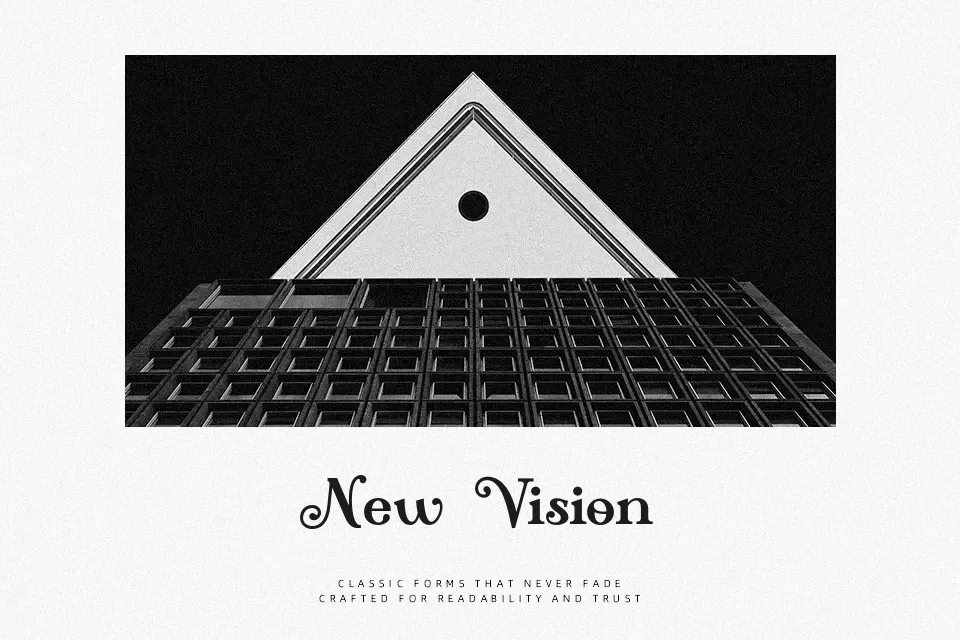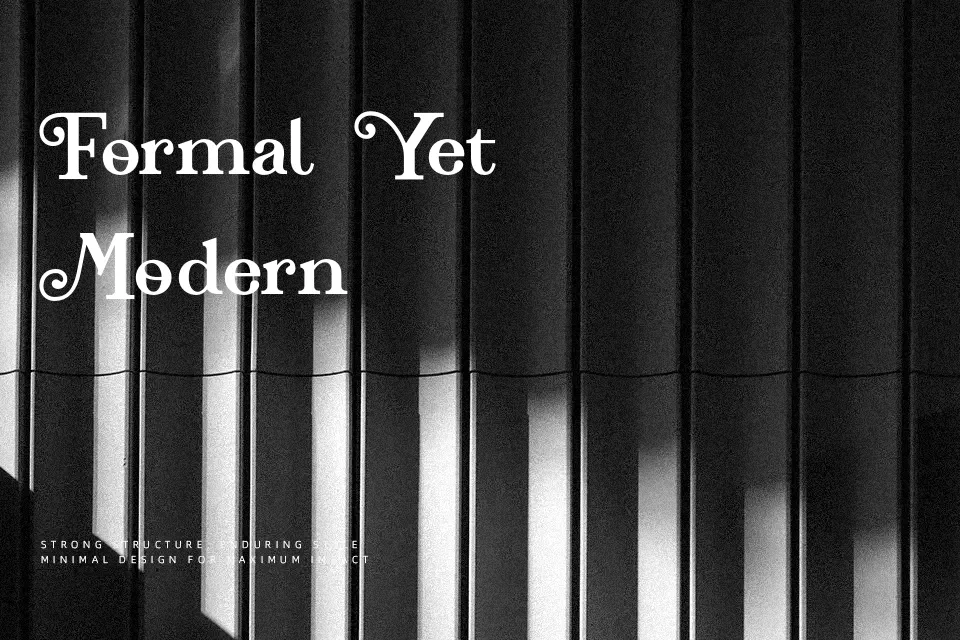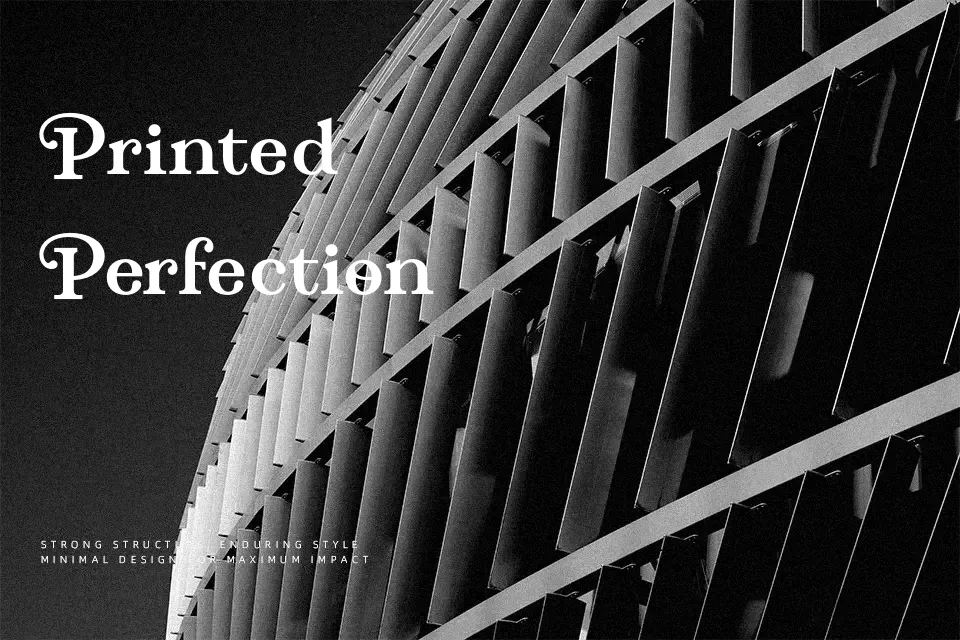
Teach Font
Teach Font delivers dramatic display typography shaped by sharp flared serifs, sweeping curved terminals, and prominent stroke contrast. Balanced spacing and elevated capitals ensure that headlines hold visual weight across poster billing blocks and entertainment branding. However, intricate terminal flourishes and delicate hairline transitions quickly deteriorate in dense editorial layouts. The letterforms perform best at generous display scales where their ornate silhouettes command immediate attention.
Best For: fantasy novel covers,cinematic display titles,theatrical event posters,video game logos
Not Ideal For: continuous body text,compact mobile interfaces,dense tabular data,legal documentation
Perfect for branding, film, and headline, with a classic and decorative style.